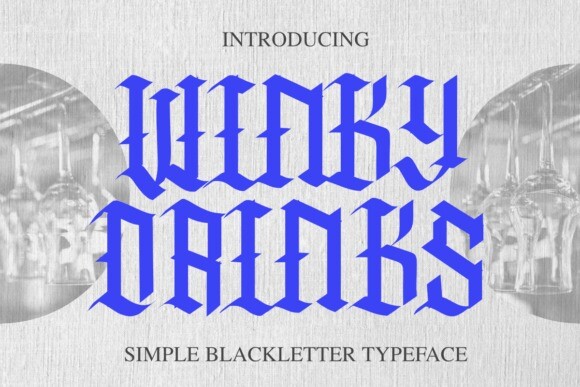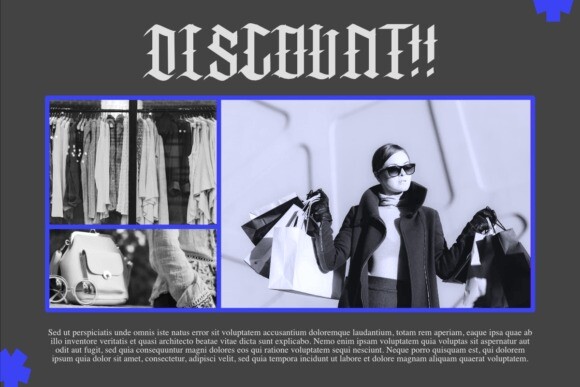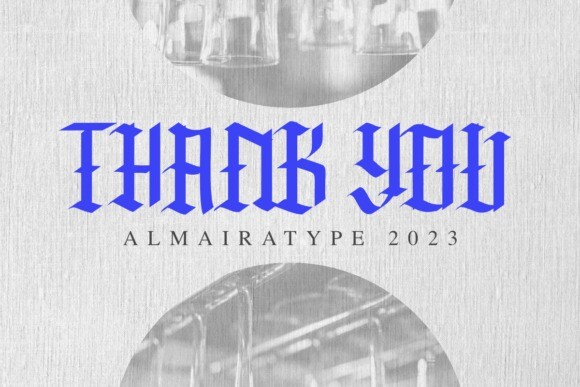
Winky Drinks Font
Winky Drinks Font is a stunning modern Blackletter font. While still displaying a classic touch, this blackletter style font still has a modern and simple artistic feel. This font is suitable for crafts, headlines, branding, business, print, t-shirts, apparel, Cricut, silhouettes and other creative ideas!